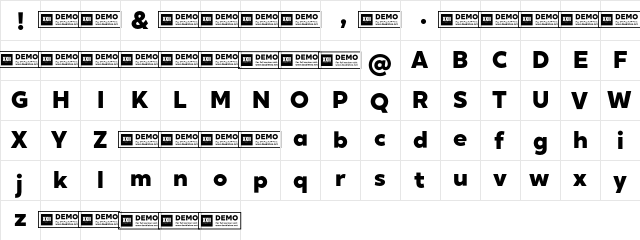
XXII Geom DEMO Heavy
| Foundry | Doubletwo Studios |
| Designer | Lecter Johnson |
Design Context for XXII Geom DEMO Typeface
XXII Geom DEMO offers clean, dependable letterforms without strong stylistic allegiance, making it a practical choice for designers who need flexibility.